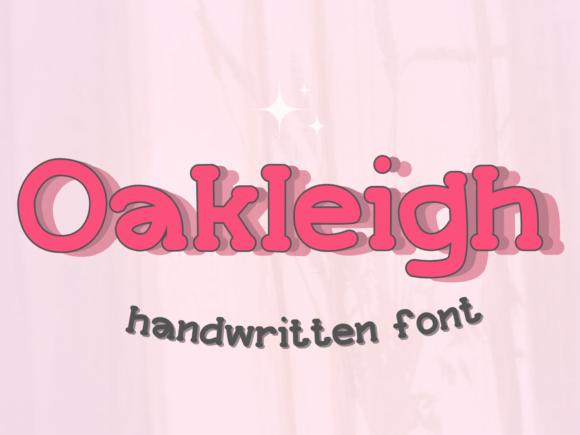
Introducing the Oakleigh Font, the best font for reports in Word and so much more. Created by the talented Pukka De, this script font is designed to add a touch of distinctiveness and uniqueness to your work. Whether you're writing a letter, designing greeting cards, wedding cards, or creating handwritten notes, Oakleigh Font will give your creations a truly captivating and one-of-a-kind look.
With its own identity and eye-catching style, Oakleigh Font is perfect for adding a creative flair to your projects. Its versatility knows no bounds - from logos to teachers' resources, Goodnotes, planners, and more, this font will elevate your work to new heights. Say goodbye to boring and predictable fonts, and embrace the novelty and charm of Oakleigh Font.
One of the most impressive features of Oakleigh Font is its wide range of applications. Crafters, teachers, and digital planners will find this font to be an absolute gem. Its handwritten style adds a personal touch to any project, making it ideal for adding a cute and charming vibe. Whether you're creating a notebook, a digital planner, or a teacher's resource, Oakleigh Font will make your work stand out from the crowd.
But Oakleigh Font doesn't stop there. Its unique design and versatility make it an excellent choice for a variety of uses. Its trendy and modern look will make any logo or branding project pop. The font's charming script and playful curves will transport you to a retro and fun world, perfect for capturing attention and creating a lasting impression.
In conclusion, Oakleigh Font is not just a font - it's a creative tool that will transform your projects into works of art. Its captivating and distinctive style, combined with its versatility and practicality, make it the perfect choice for anyone looking to elevate their design game. So why wait? Embrace the art of typography and let Oakleigh Font bring your visions to life.